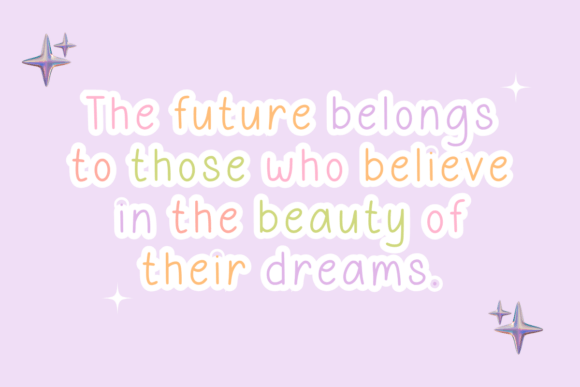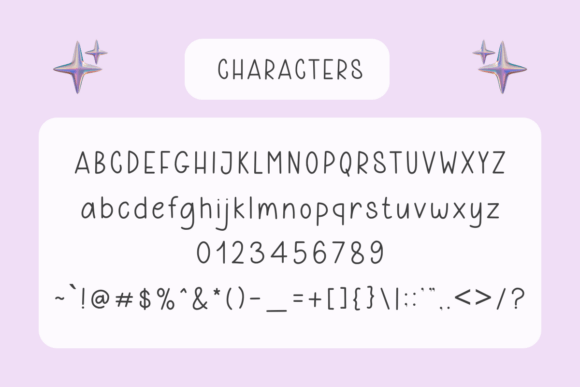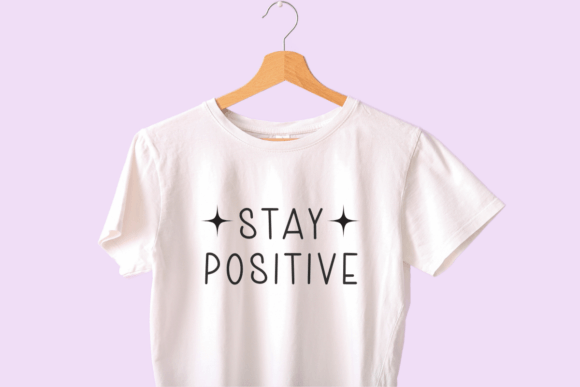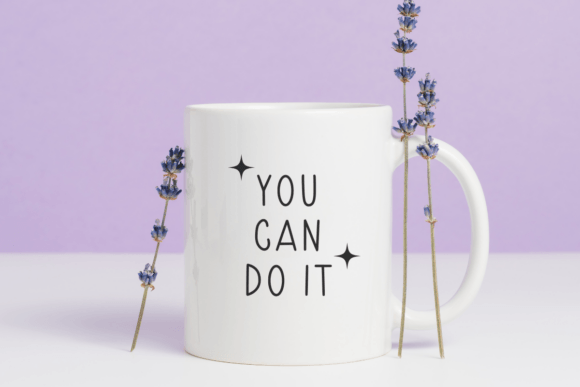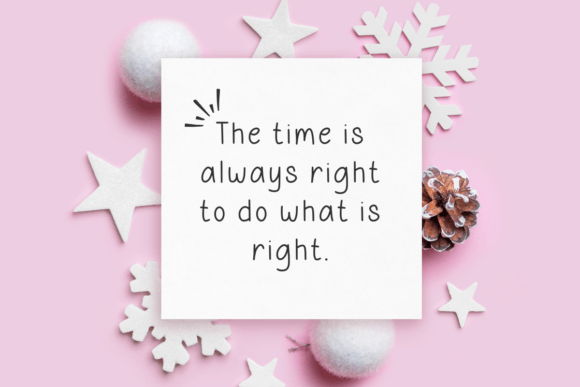
Introducing Focus Sparkle Font: Elevate Your Designs with a Touch of Whimsy
In the world of design, fonts play a pivotal role in conveying messages, expressing creativity, and capturing the audience’s attention. For designers and crafters looking to add a dash of fun and uniqueness to their projects, the Focus Sparkle Font is an excellent choice. This fun sans serif font is not just a typeface; it’s an experience that brings a vibrant, eye-catching quality to any design.
The Essence of Focus Sparkle Font
Focus Sparkle is described as a fun sans serif font, which immediately sets it apart from the more traditional and formal typefaces. Its sans serif nature gives it a clean and modern look, making it versatile for a wide range of design applications. However, it’s the “fun” aspect that truly makes Focus Sparkle shine. Each letter in this font has been crafted with a unique and beautiful touch, imbuing it with a playful spirit that’s hard to ignore.
Perfect for Eye-Catching Logos, Branding, and Quotes
One of the standout features of the Focus Sparkle Font is its ability to create eye-catching logos, branding elements, and quotes. In today’s competitive market, brands need to stand out, and a custom logo or branding message can be a significant differentiator. With Focus Sparkle, designers can craft visually appealing and memorable logos that capture the essence of a brand. Similarly, for quotes and sayings, this font adds a decorative flair that can make the text not only more engaging but also shareable across social media platforms.
Bringing Designs to Life
The unique touch of each letter in the Focus Sparkle Font is what truly sets it apart. Unlike standard fonts where each character follows a uniform design, Focus Sparkle injects a dose of individuality into every letter. This not only adds a layer of creativity to the text but also ensures that the design stands out. Whether you’re working on a DIY project, a client’s branding campaign, or simply expressing your creativity, Focus Sparkle can help bring your designs to life in a way that’s both subtle and impactful.
Versatility for Designers and Crafters
For designers and crafters, versatility is key. The Focus Sparkle Font, with its fun and modern aesthetic, can be applied across various projects. Here are a few ideas:
- Social Media Graphics: Use Focus Sparkle to create engaging social media posts, stories, and banners that capture attention.
- Branding Materials: Incorporate this font into business cards, brochures, and letterheads for a unique brand voice.
- DIY Projects: Add a personal touch to planners, journals, and crafts with Focus Sparkle.
- Web Design: Enhance website headers, titles, and call-to-action buttons with a spark of creativity.
Tips for Using Focus Sparkle Font Effectively
To make the most out of Focus Sparkle, consider the following tips:
- Mix and Match: Combine Focus Sparkle with other fonts for contrast and hierarchy in your designs.
- Play with Colors: Experiment with vibrant colors to amplify the fun and playful vibe of the font.
- Use Sparingly: While Focus Sparkle is eye-catching, use it judiciously to maintain readability and impact.
The Focus Sparkle Font is more than just a typeface; it’s a design element that can transform your projects with its fun, unique, and eye-catching qualities. Whether you’re a professional designer or a crafting enthusiast, Focus Sparkle offers a world of creative possibilities. With its versatility, charm, and the ability to make designs come alive, Focus Sparkle Font is an excellent addition to any creative toolkit.
So, why settle for ordinary when you can sparkle? Dive into the world of Focus Sparkle Font today and let your designs shine like never before!